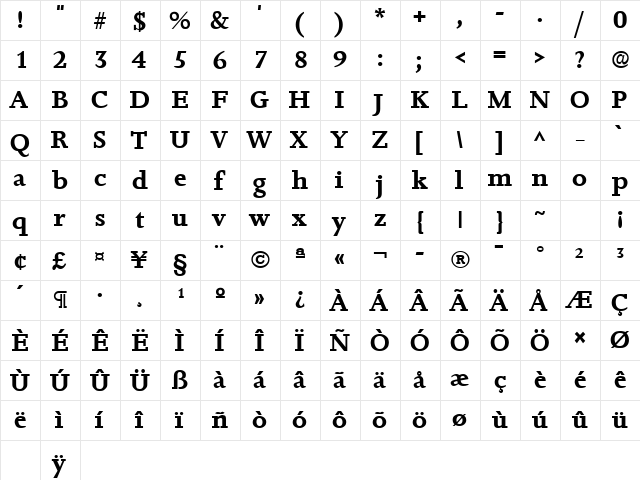
Jessica Bold Font Preview
Jessica Bold
Jessica Bold Font Details
Design Context for Jessica Typeface
Jessica takes a measured approach to typography — its balanced proportions and neutral character make it a reliable workhorse for both digital and print work. The heavy weight commands attention and anchors typographic hierarchies.